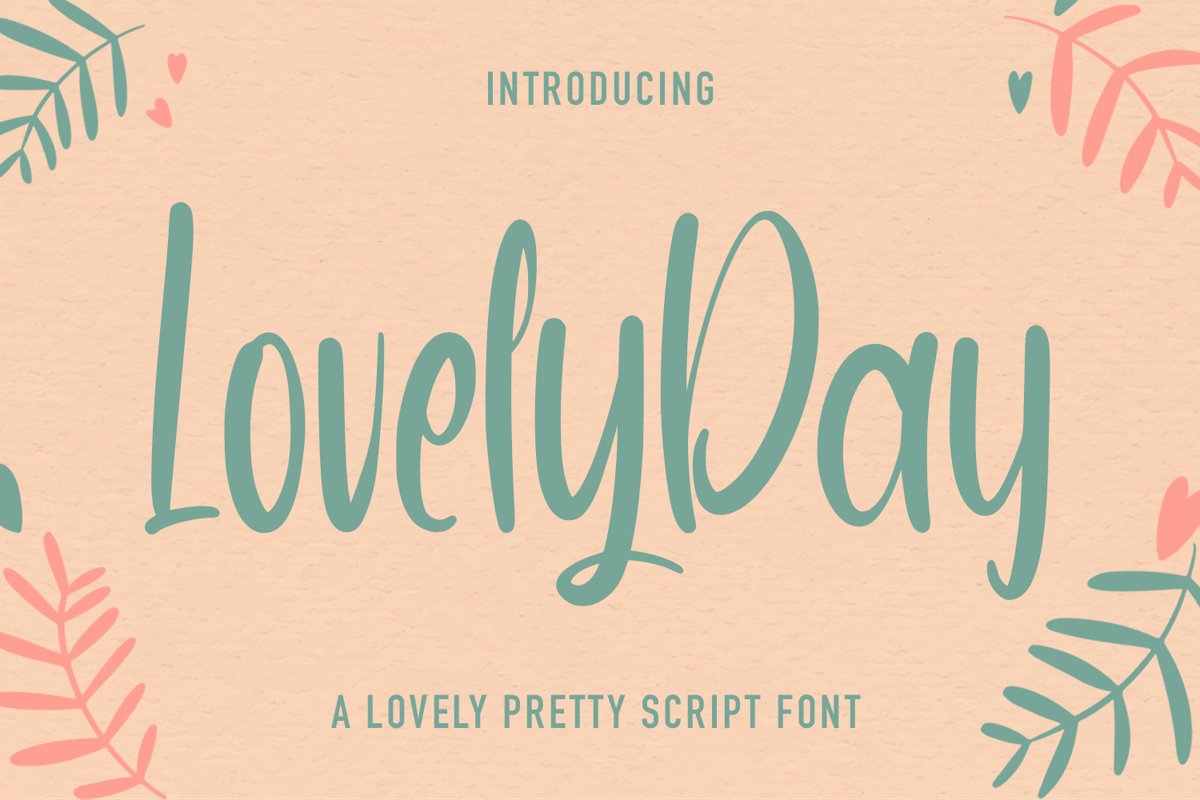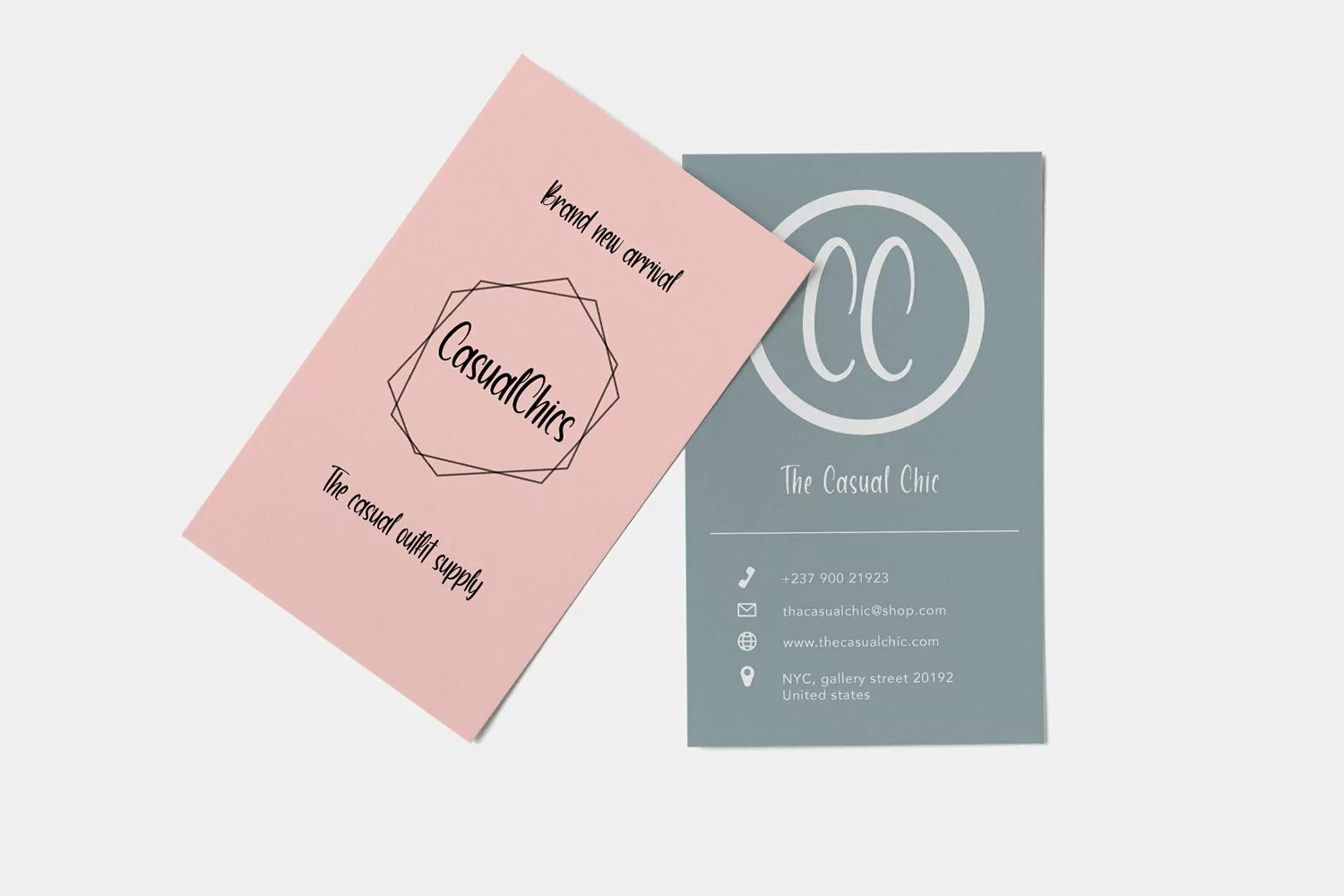
LovelyDay - Pretty Script Font that contain lowercase, uppercase, symbol, and also support multi language. There’s a lot ligatures in this font. This Font also comes with ligatures, alternates and many more. this font suitable for fashion, branding, catalog and other design what you want.